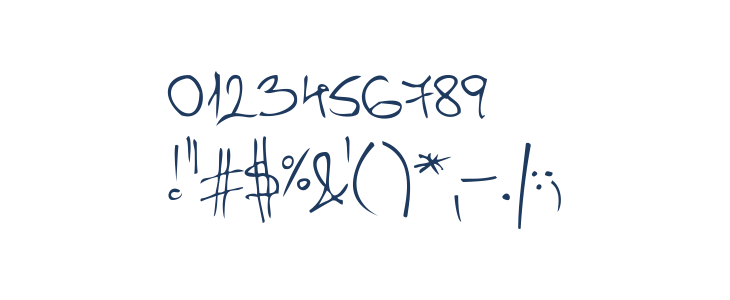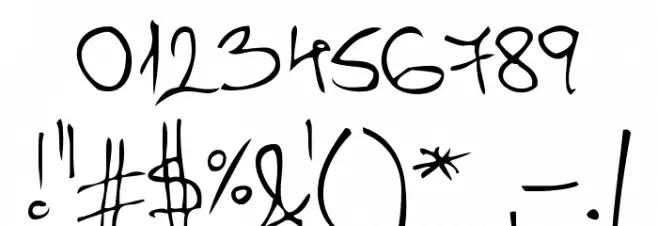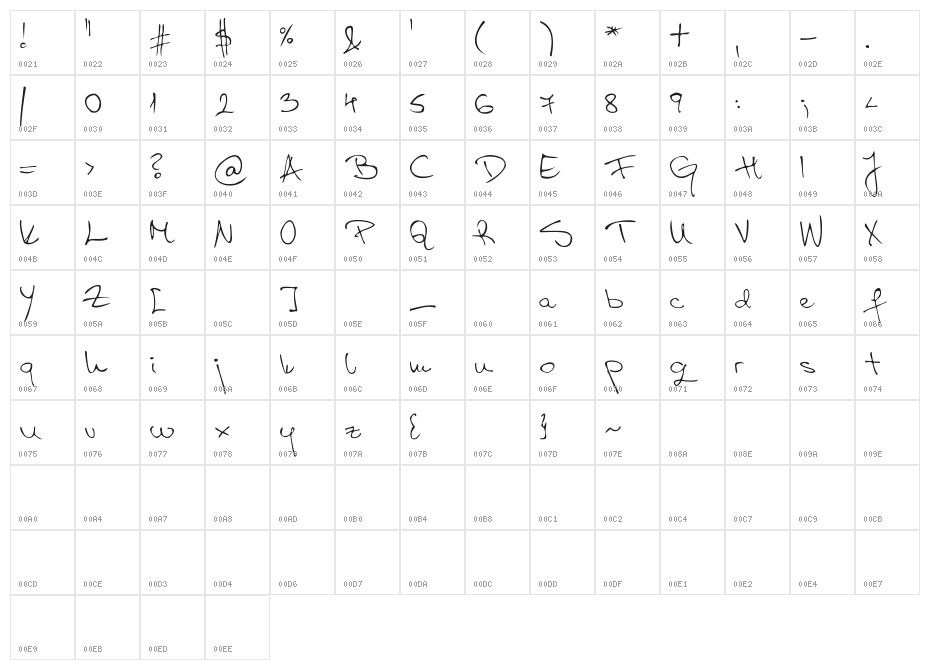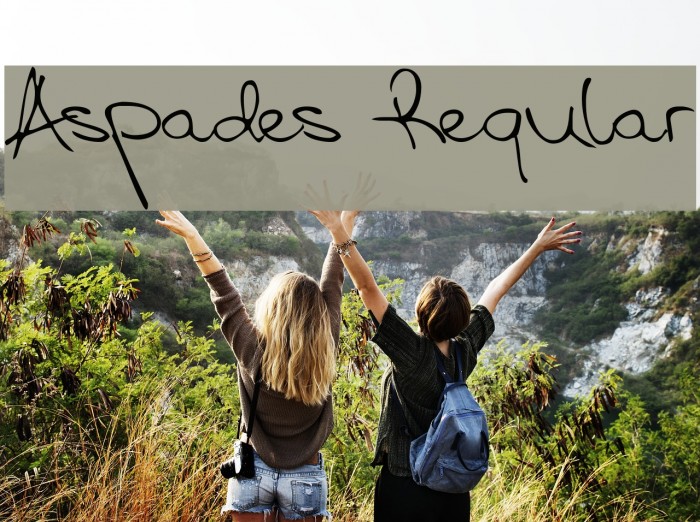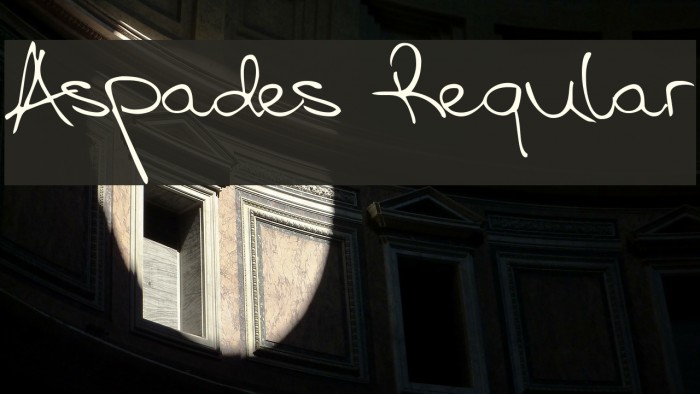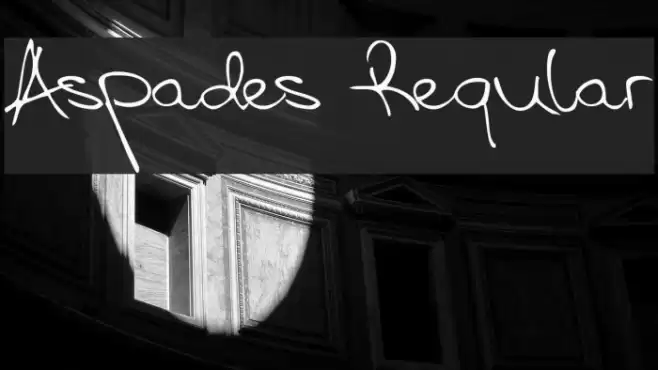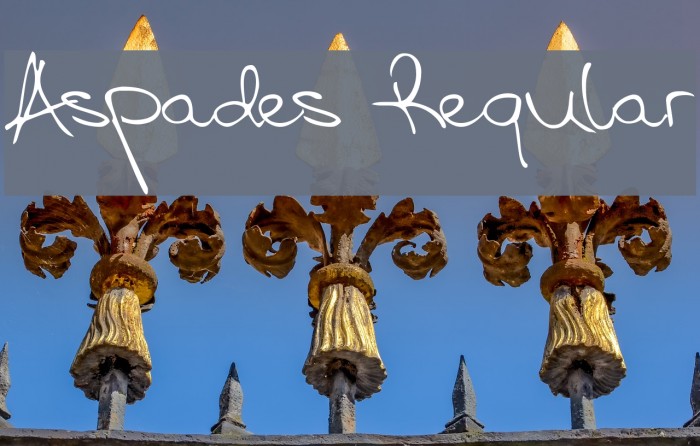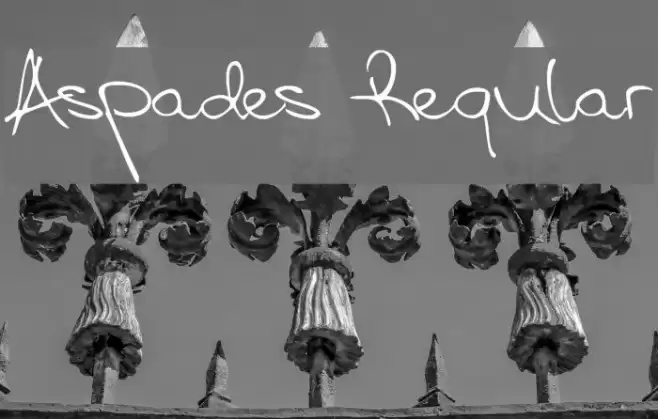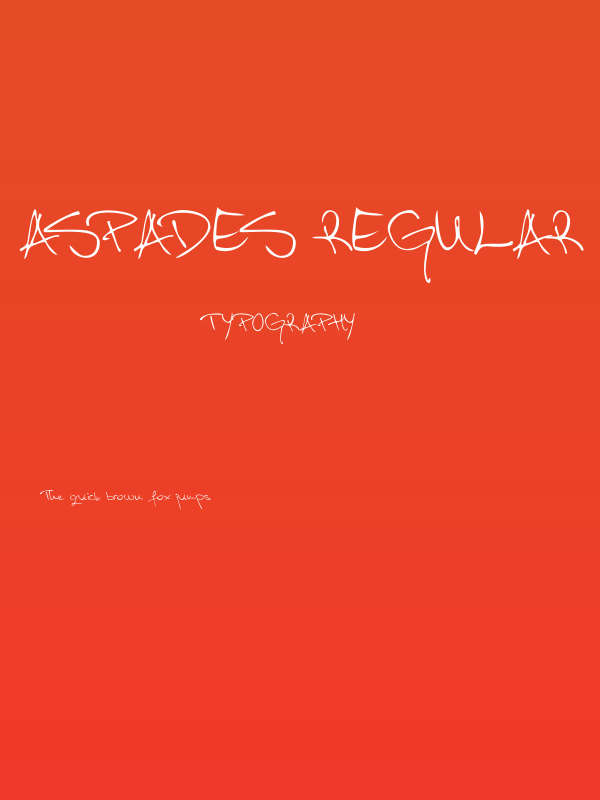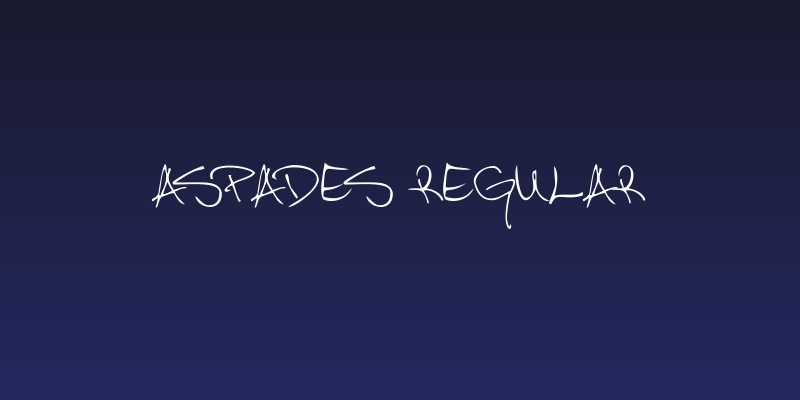
Aspades Regular Font
Aspades Regular Description
This font features a dynamic and energetic handwritten style, characterized by its fluid and slightly erratic strokes. The uppercase letters are bold and expressive, with a playful yet sophisticated flair. The lowercase letters maintain a consistent flow, enhancing the overall casual aesthetic. Numbers and special characters are crafted with the same lively spirit, making them stand out while remaining cohesive with the alphabet. The font's unique style is suitable for projects that require a personal touch or a creative edge.